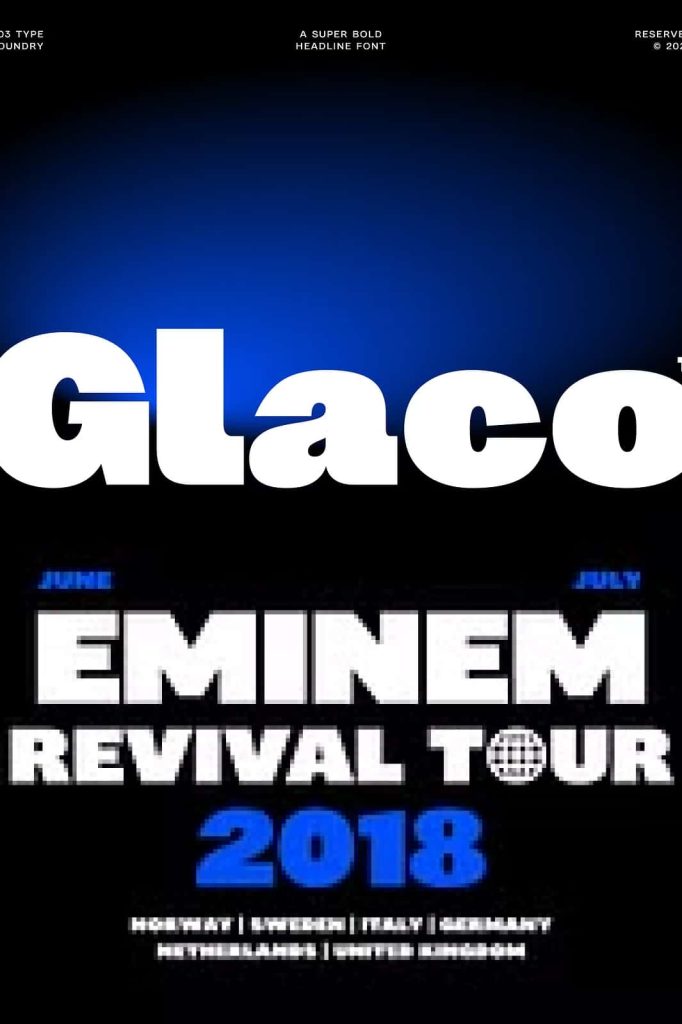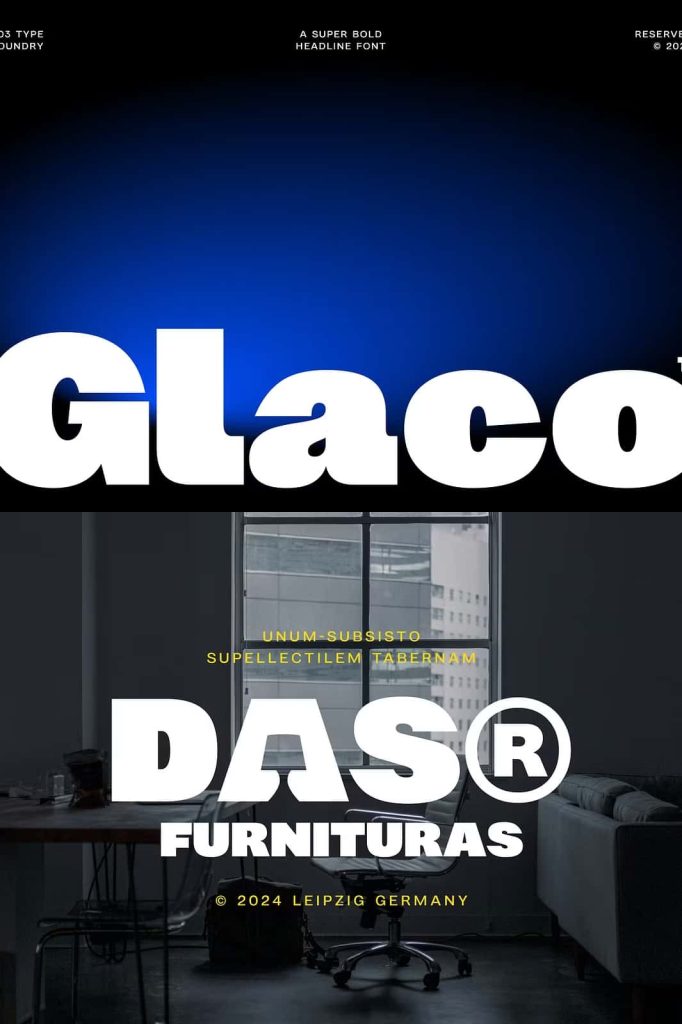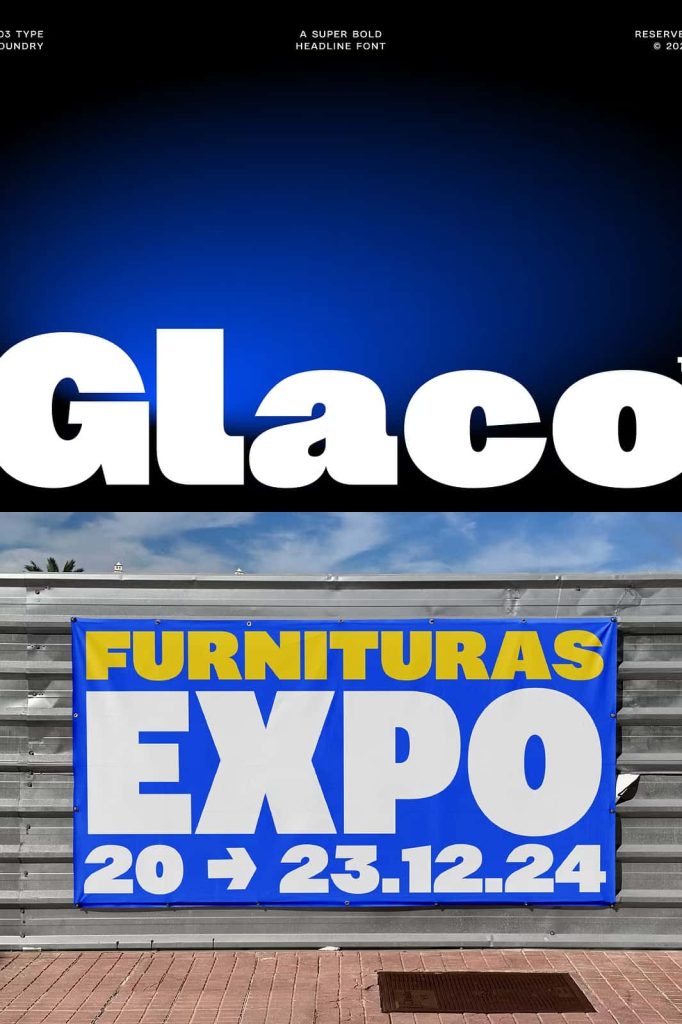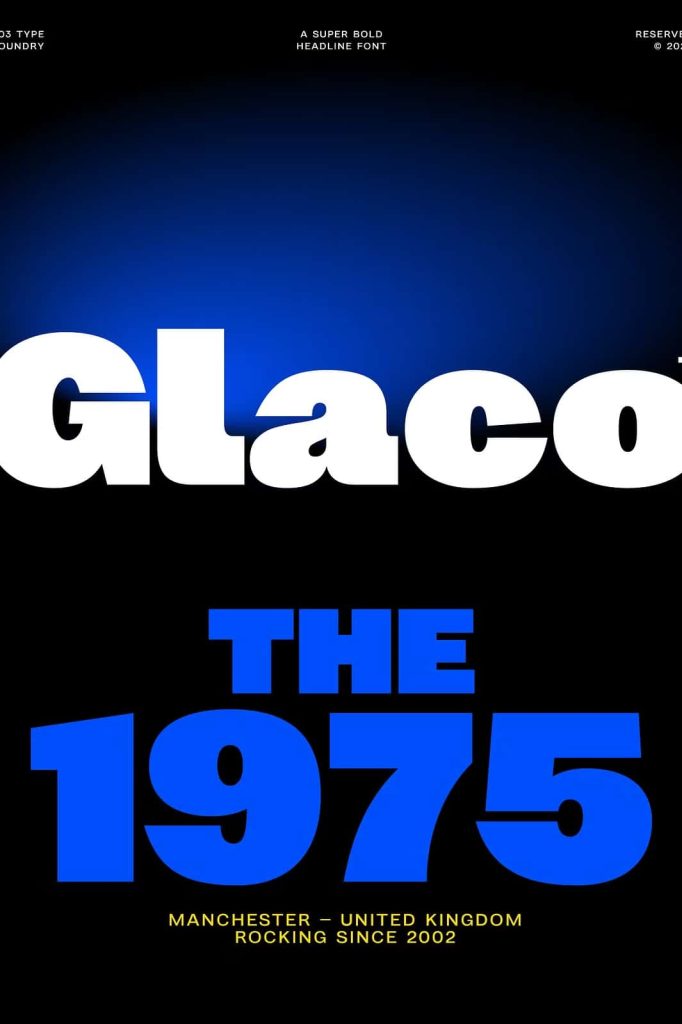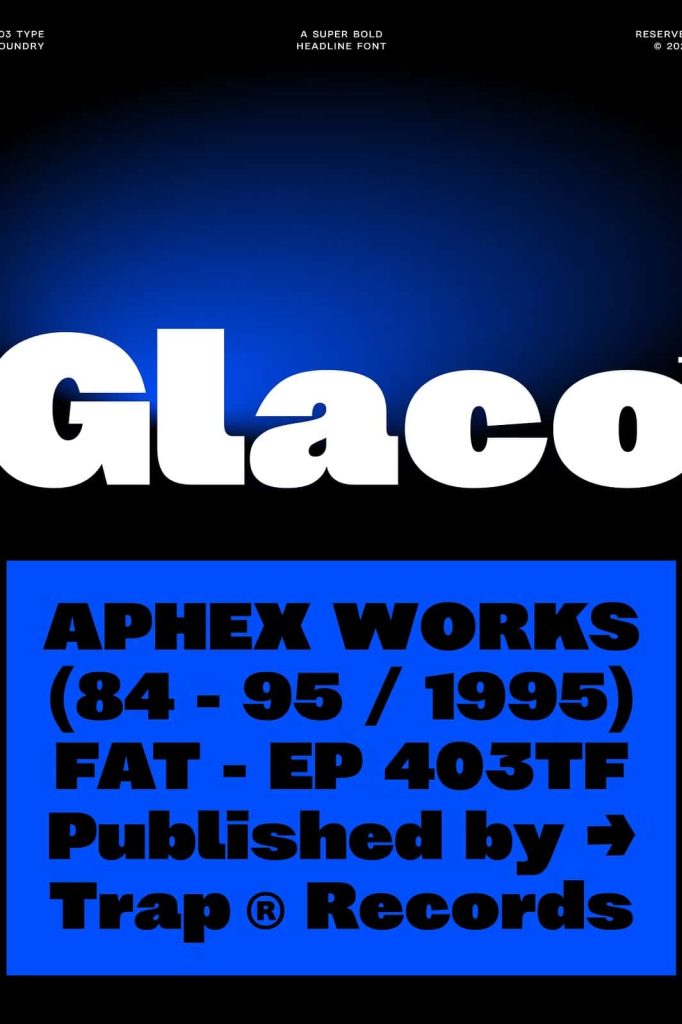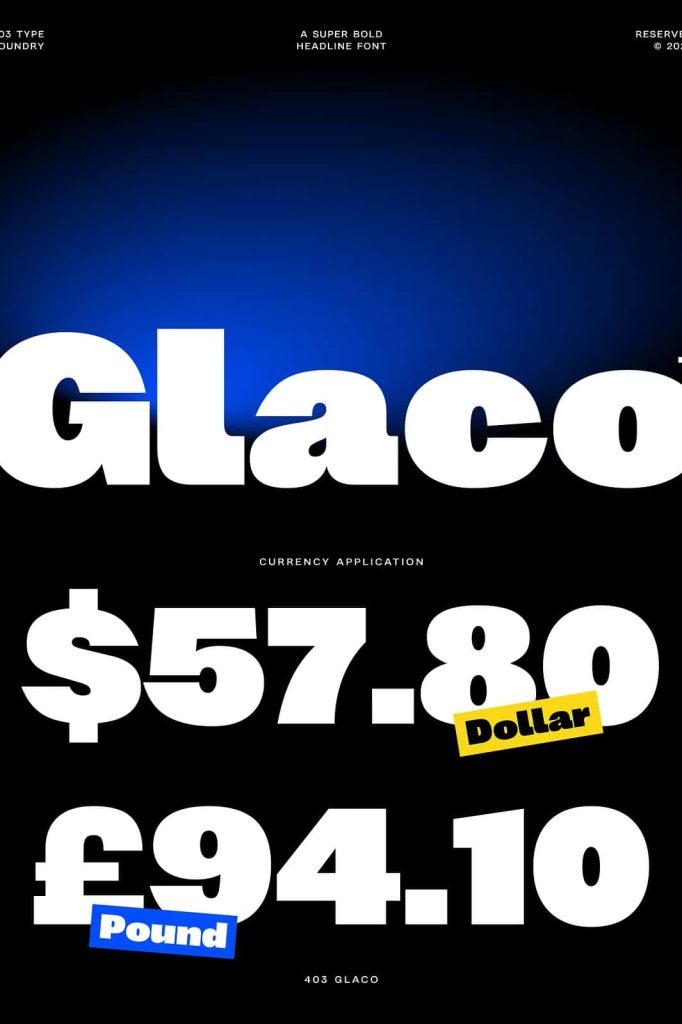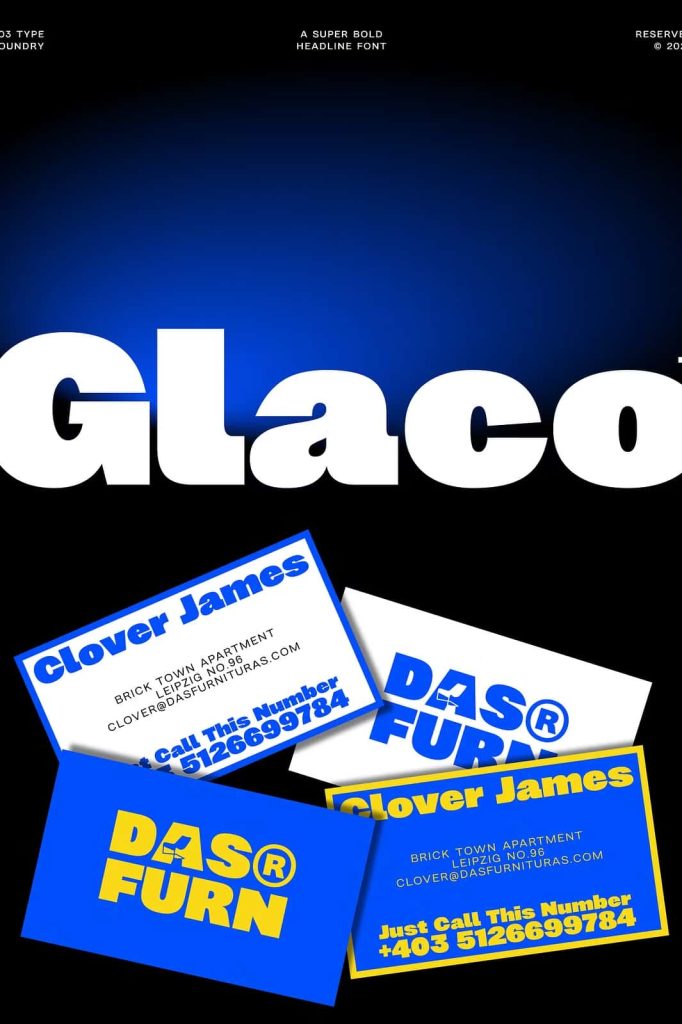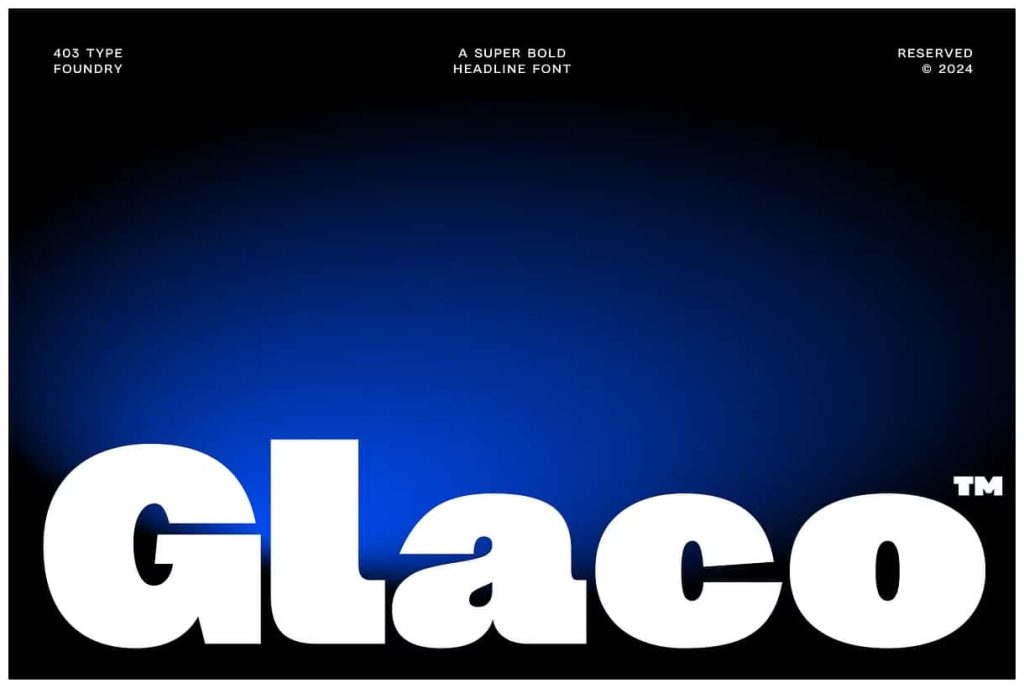
403 GlacoleastedFebruary 5, 2025Fonts 403 Glaco is a powerful, geometric sans-serif typeface that commands attention with its bold, blocky design. Download